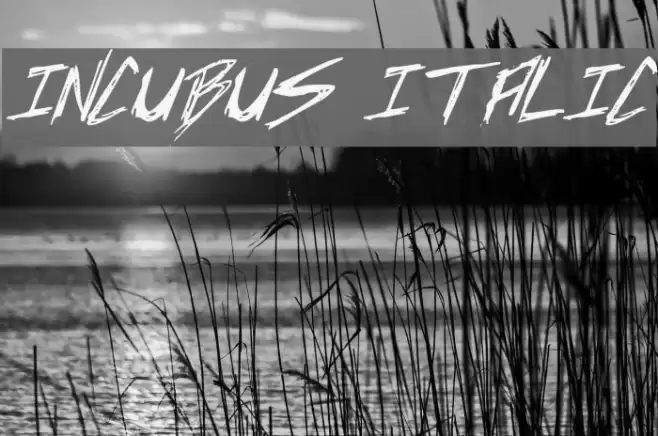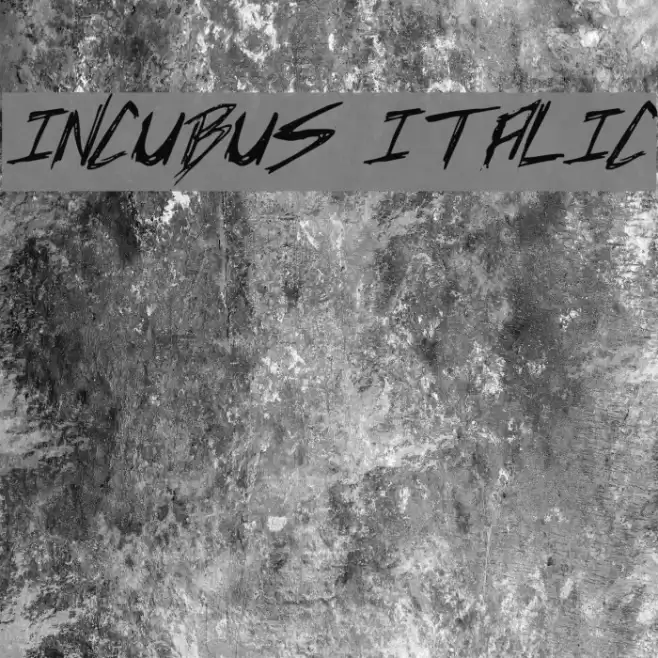
Incubus Italic Font
Incubus Italic Description
This font exhibits a bold, energetic style with a distinctly aggressive and edgy appearance. The strokes are dynamic and irregular, giving it a hand-drawn, graffiti-like feel. The letters are slanted, emphasizing its italic nature, and the sharp, jagged edges add a sense of urgency and movement. The uppercase and lowercase letters maintain a consistent style, with exaggerated curves and angles that create a sense of chaos and intensity. The numbers and special characters follow the same aesthetic, ensuring a cohesive look across all elements. This font is ideal for projects that require a bold statement and a rebellious, unconventional vibe.
A bold, edgy, and italic font with a hand-drawn, graffiti-like style from Handwritten fonts.
- Proposed Projects: Album covers, streetwear branding, event posters, skateboarding graphics, and rebellious-themed designs.
- Character Spacing: Tight
- Contrast: High
- Overall Style: Modern, Edgy